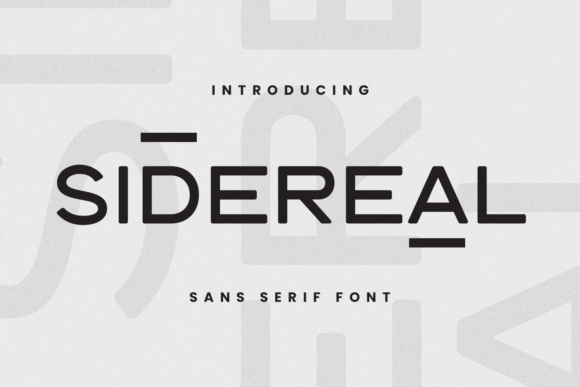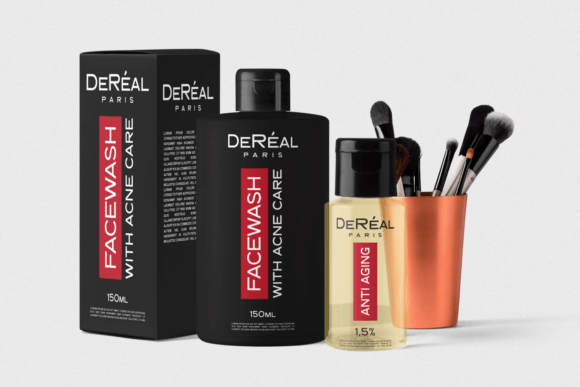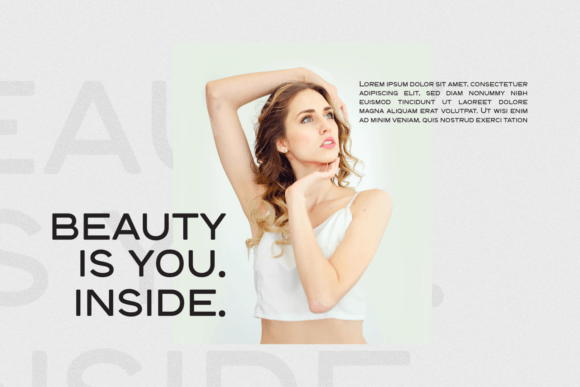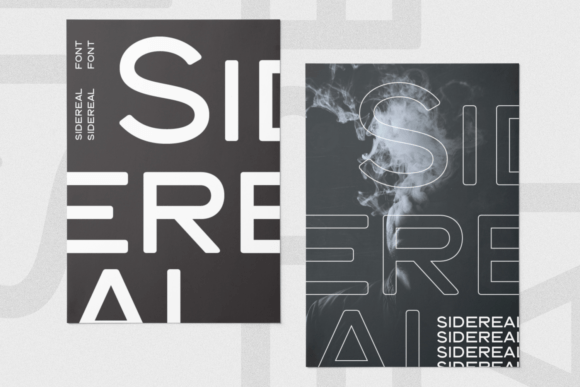
Sidereal Font: Elegant Sans Serif for Modern Logo Design & Branding
About the Sidereal Font
From logos to headlines, the Sidereal Font is the perfect choice for making a lasting impression. Sidereal is a wide sans serif font with visual elegance, smooth curves, and beautiful ligatures, making your work look true and attractive.
A versatile font that works in both large and small sizes. This font is suitable for a wide variety of projects such as logos, invitations, branding, magazine, photography, card, product packaging, product mockup, mugs, quotes, posters, labels, signatures, editorials, websites, art deco, social media, and much more.
Sidereal Font Usage Examples
Sidereal Font Example